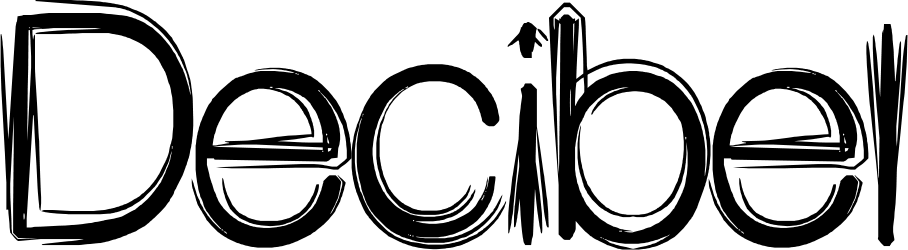
Decibel Font
Decibel is one of the most popular distorted fonts. This font has a creative and fancy design and conveys a sense of calm and freshness to the audience. You can use this font to attract people’s attention and engage them…
Decibel is one of the most popular distorted fonts. This font has a creative and fancy design and conveys a sense of calm and freshness to the audience. You can use this font to attract people’s attention and engage them with your graphic work. Decibel is an ideal font for producing video content.